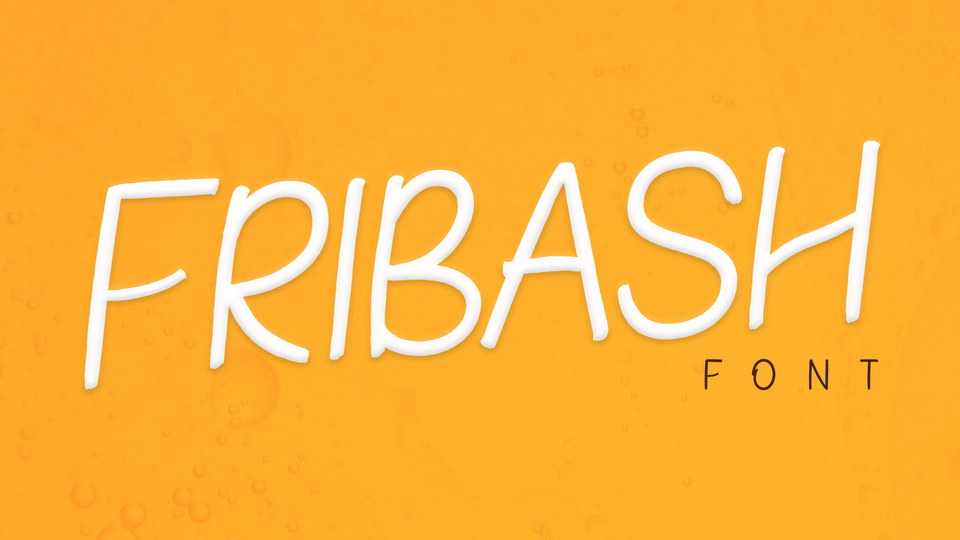
Download Fribash font, a sweet and friendly handwritten typeface. Its natural and casual style makes Fribash incredibly fitting to a large range of designs.
Designer: Katario Studio